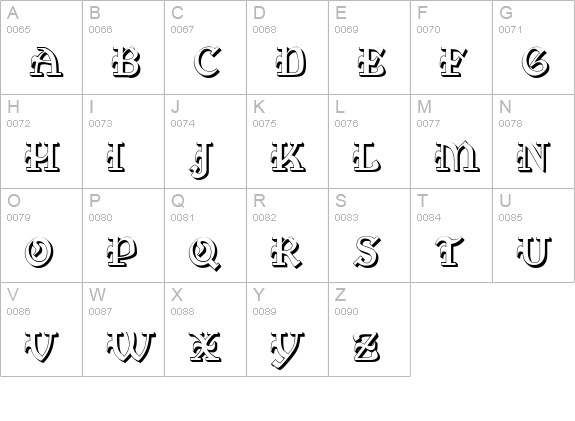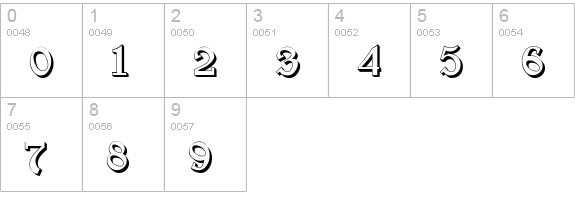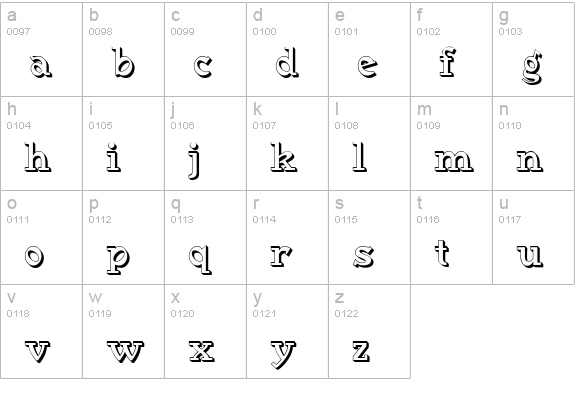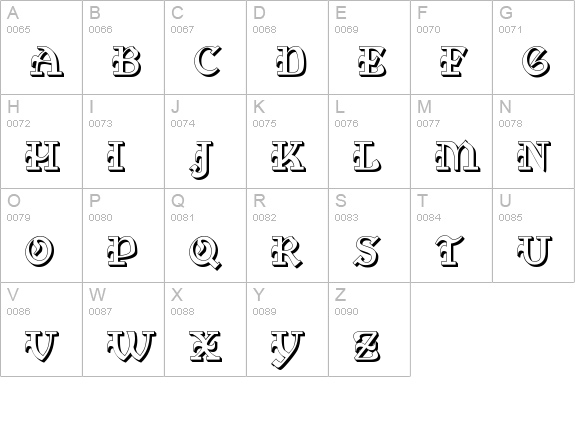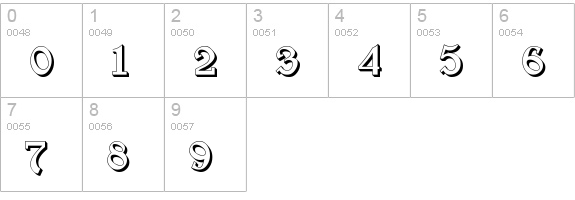
MedievalGunslingerShadow font is a bold and intricate typeface inspired by the weaponry of medieval times and the mysterious allure of the Wild West. With its unique blend of ancient aesthetic and modern design, this font exudes power and elegance, making it perfect for projects that require a touch of historical charm. What sets MedievalGunslingerShadow font apart is its striking shadow effect that adds depth and dimension to each letter, creating a dramatic and dynamic visual impact. Whether you're designing posters, logos, or invitations, this font is sure to make a bold statement. Best of all, MedievalGunslingerShadow font is available for free download at FontsMarket.com. So go ahead and add this captivating typeface to your collection today and bring a touch of medieval magic to your next creative endeavor.